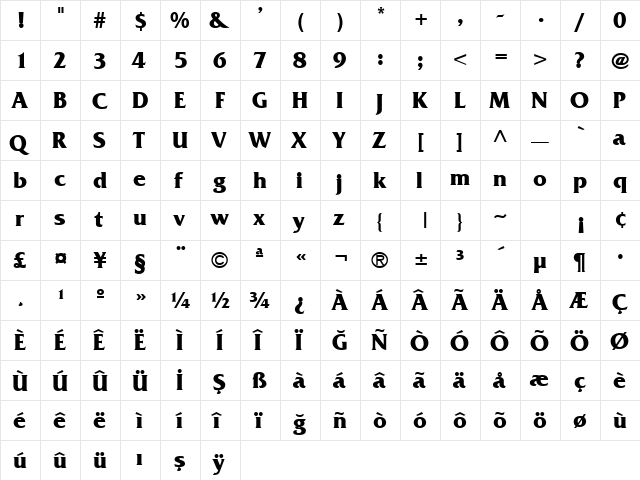
TR France Bold Font Preview
TR France Bold
Design Context for TR France Typeface
TR France is a composed and adaptable typeface that performs quietly and consistently across a wide range of design contexts. The heavy weight commands attention and anchors typographic hierarchies.